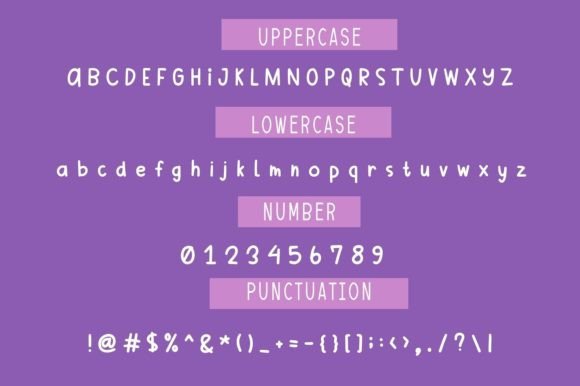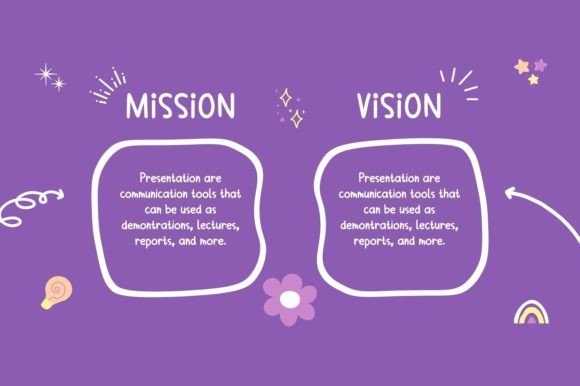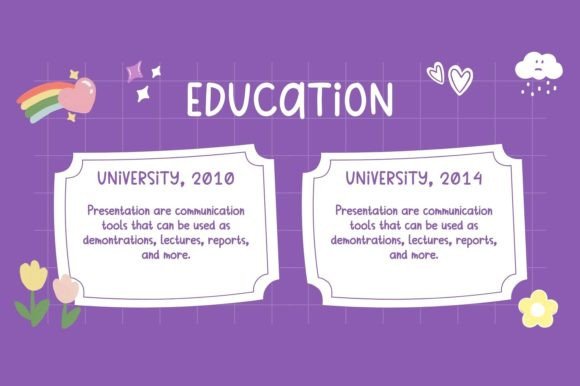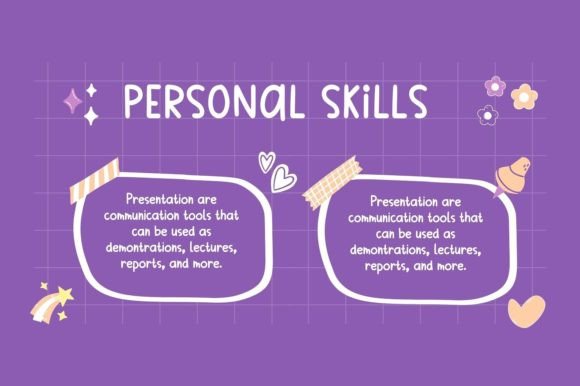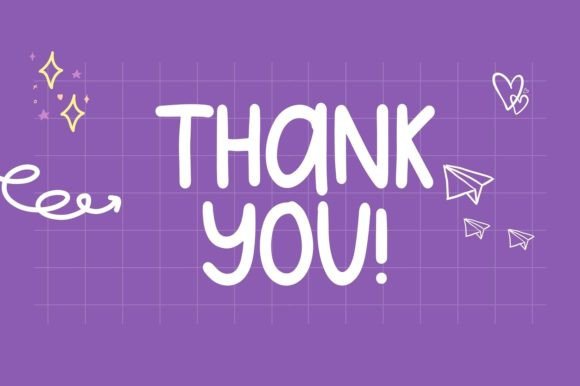
Introduction to Harper Font
Do you remember the feeling of excitement when you stumble upon the perfect design element for your creative project? It’s like finding a missing puzzle piece that brings your entire vision to life. For many designers, this moment of triumph often involves discovering a beautiful font that elevates their work to the next level.
Enter the Harper Font, a delightful handwritten font that has captured the hearts of designers worldwide. With its light, playful characters, Harper Font is the ultimate design resource for any creative project. Whether you’re working on a blog post, logo, or invitation, this versatile font is sure to add a touch of authenticity and personality to your work. And the best part? Harper Font is available for a free download, making it an accessible addition to any design arsenal.
As a valuable resource for designers, Harper Font offers a high-quality solution for a wide range of design needs. Its transparent background allows for seamless integration with any design element, making it a go-to choice for designers looking to add a touch of whimsy and charm to their work.
Key Features of Harper Font
- High-quality font with a unique, elegant design, perfect for creating visually appealing and professional-looking content.
- Supports a wide range of languages, including Latin, Cyrillic, and Greek scripts, making it a versatile font for international projects.
Honest Review: Harper Font
As a designer, I’m always on the lookout for high-quality design resources to elevate my creative projects. Recently, I stumbled upon the Harper Font, and I’m excited to share my honest review with you.
- ✨ High-quality typography: The Harper Font boasts a clean, elegant design that’s perfect for both body text and headings.
- ✨ Versatile style: This font is suitable for a wide range of creative projects, from fashion and beauty to lifestyle and travel.
Any limitations:
- ⚠️ Limited font weights: While the Harper Font offers a decent number of font weights, it could benefit from more options for added flexibility.
- ⚠️ Limited language support: The font primarily supports Latin characters, which may limit its use in multilingual projects.
Overall, I’m impressed with the Harper Font’s quality and versatility. While it has some limitations, it’s an excellent choice for designers working on creative projects that require a clean, elegant typography. I highly recommend giving it a try, especially since it’s available for free download.